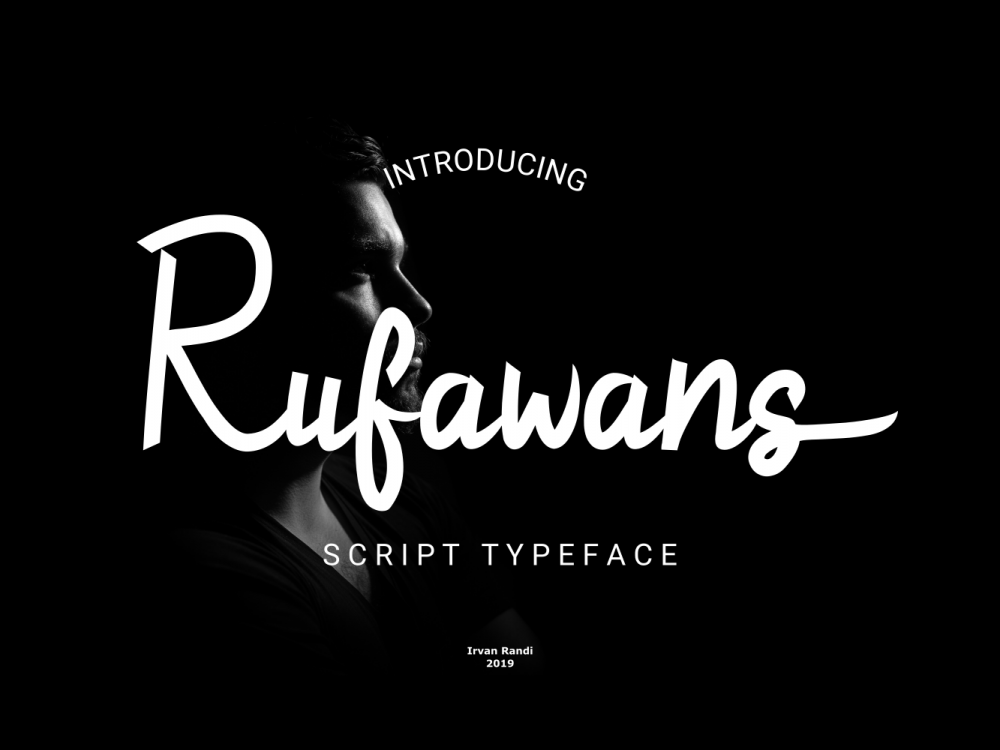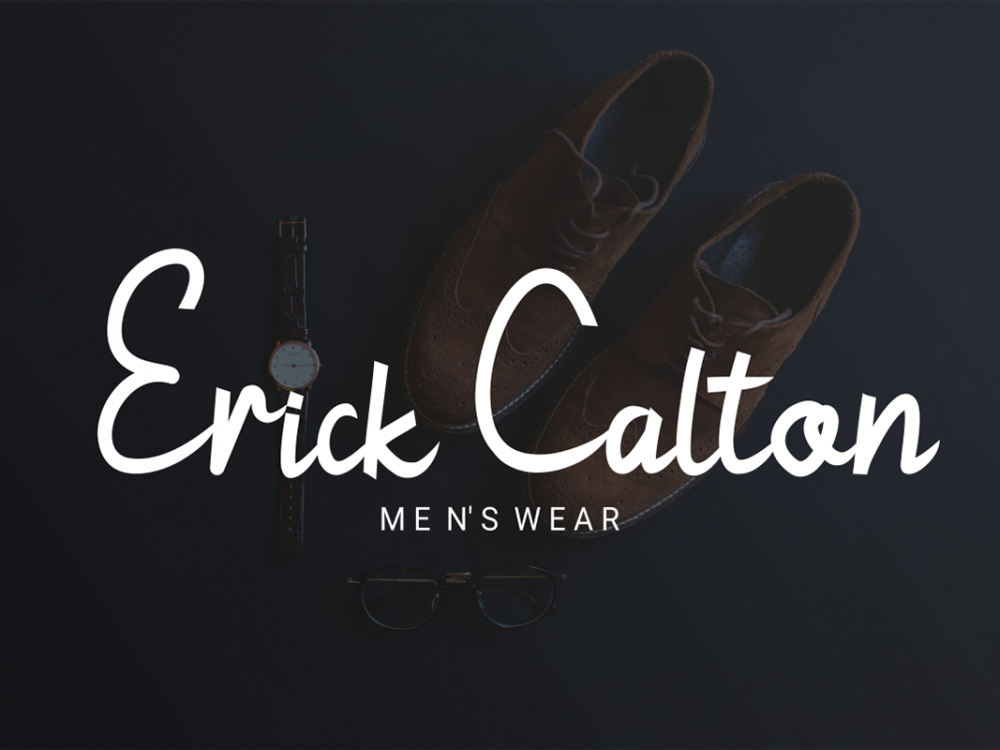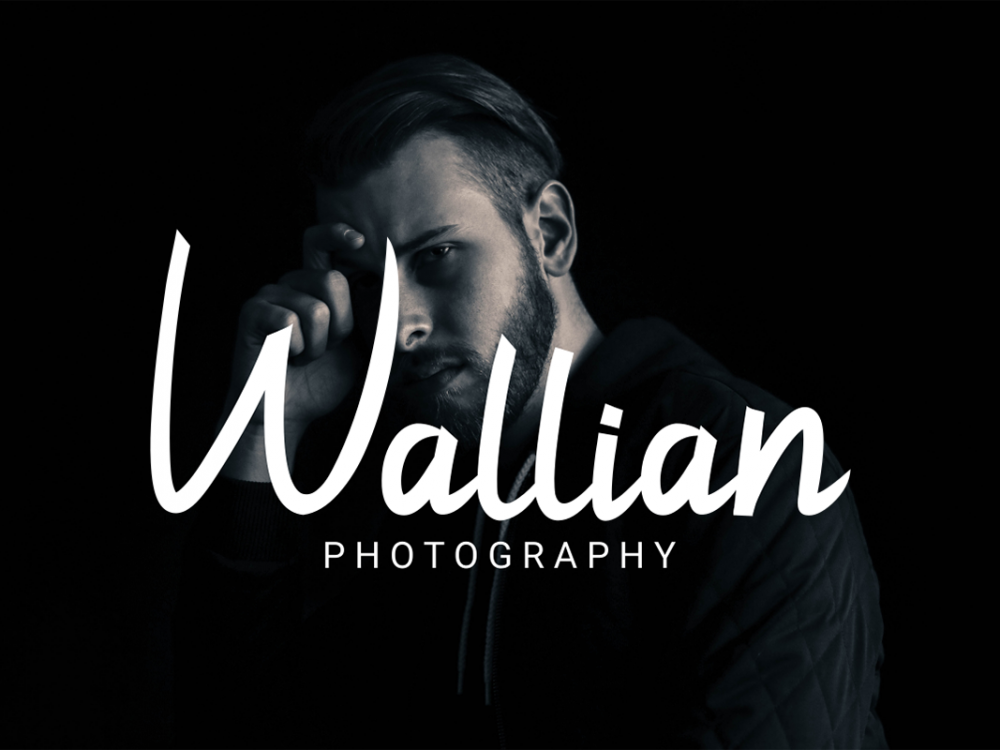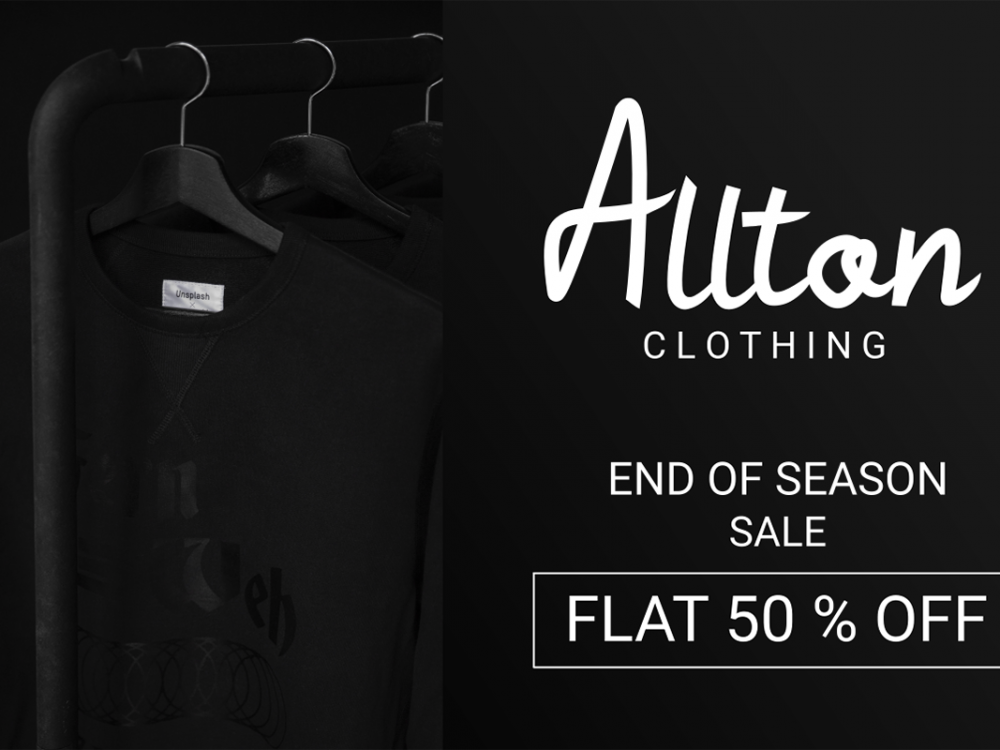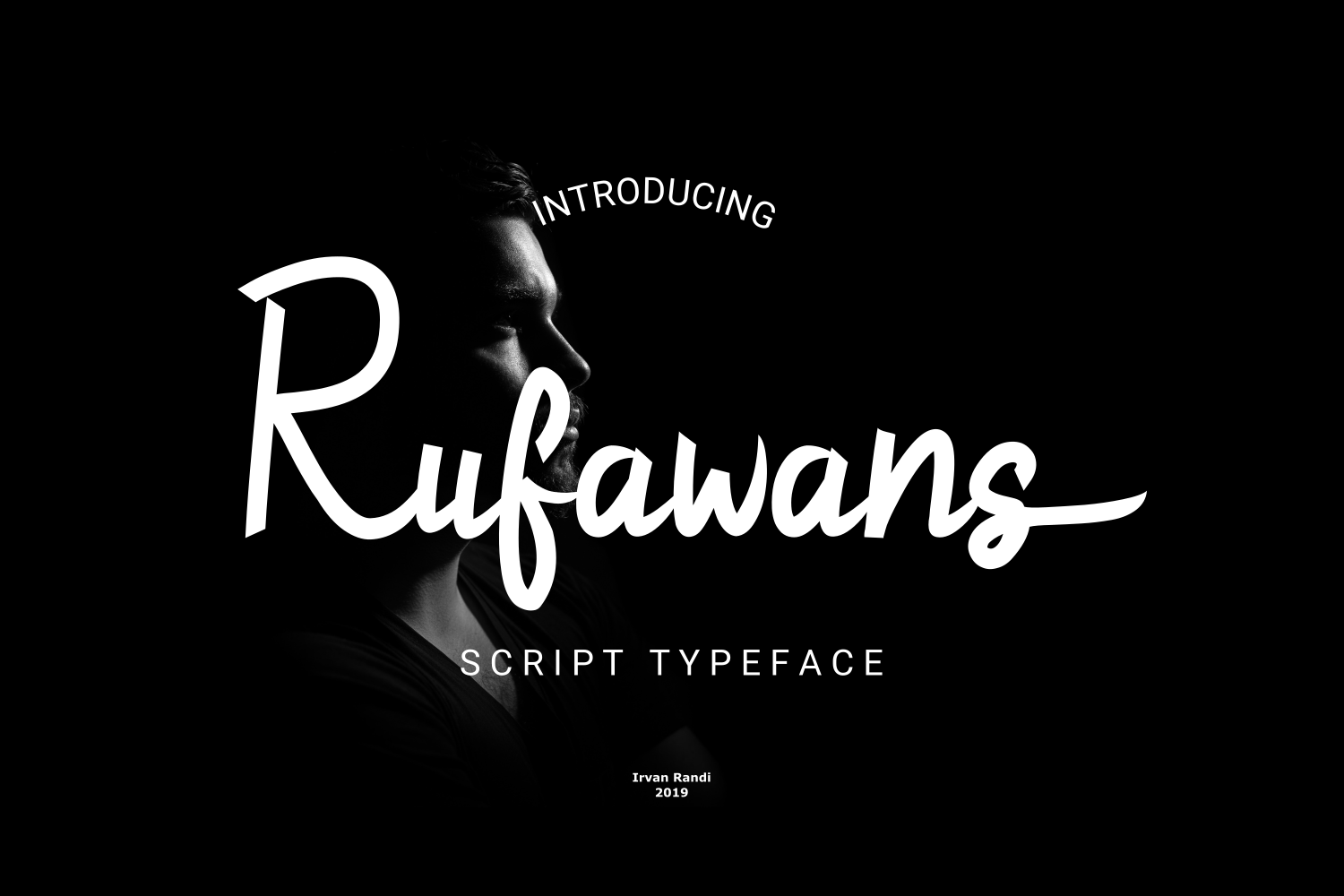
Rufawans Free Font
Rufawans Free Font is an interesting typeface that stands out for its modern calligraphic style among other fonts. This font is very suitable for creating various projects that require a scripted handwritten font. Use this font to create branding projects, logos, wedding designs, social media posts, advertisements, product packaging, product designs, label, photography, watermark, invitation, stationery, and more. Improve your professional level using this font. If you like it don’t forget to check out the full version.